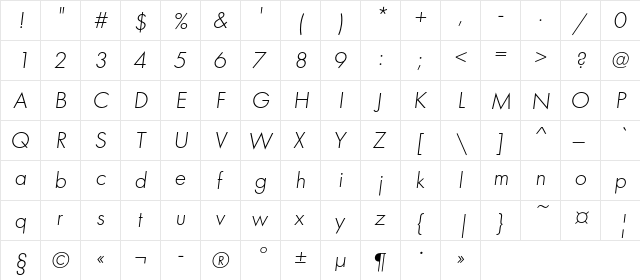
FuturaLightC Italic Font Preview
Design Context for FuturaLightC Typeface
FuturaLightC has a distinctly futuristic character, with geometric precision and clean angles that feel at home in technology, gaming, and sci-fi contexts. Its italic angle brings a sense of urgency and motion to the letterforms. Its slender proportions lend an understated elegance to any composition.
Pro Tip: Use FuturaLightC in combination with a neutral sans for body text. Let it define the brand voice in headlines while keeping reading comfortable elsewhere.